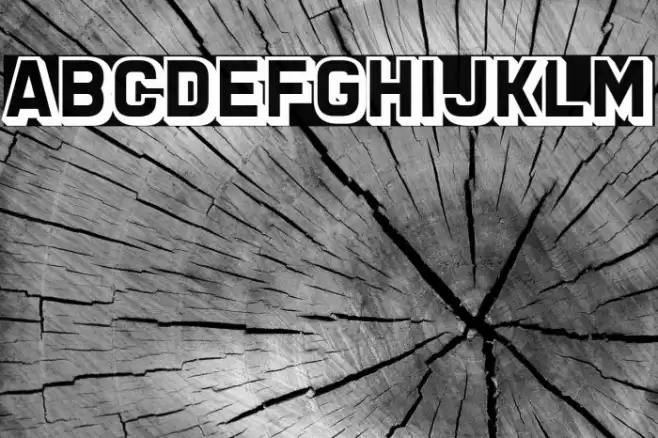
San Marino Beach Font
San Marino Beach Description
This font features bold, uppercase letters with a distinct three-dimensional shadow effect, giving it a striking and impactful appearance. The characters are sans-serif, with clean, geometric lines and a modern aesthetic. The shadow adds depth, making it ideal for designs that require a strong visual presence. The numbers and special characters are consistent with the letterforms, maintaining the bold and shadowed style. This font is perfect for creating eye-catching headlines, posters, and branding materials that need to stand out.
A bold, shadowed sans-serif font with a modern, geometric style from Uncategorized fonts.
- Proposed Projects: Ideal for posters, headlines, branding, and any design needing a bold, impactful look.